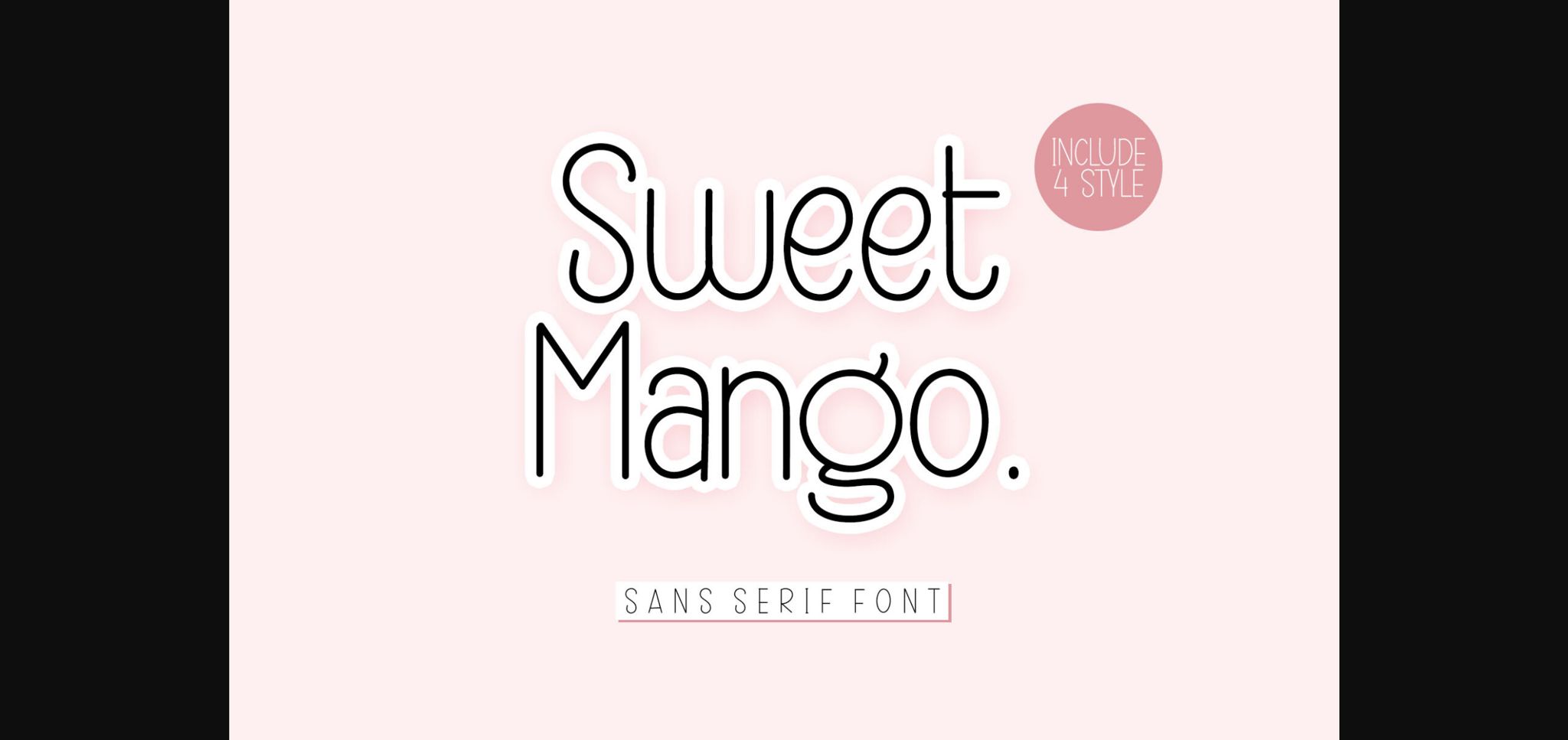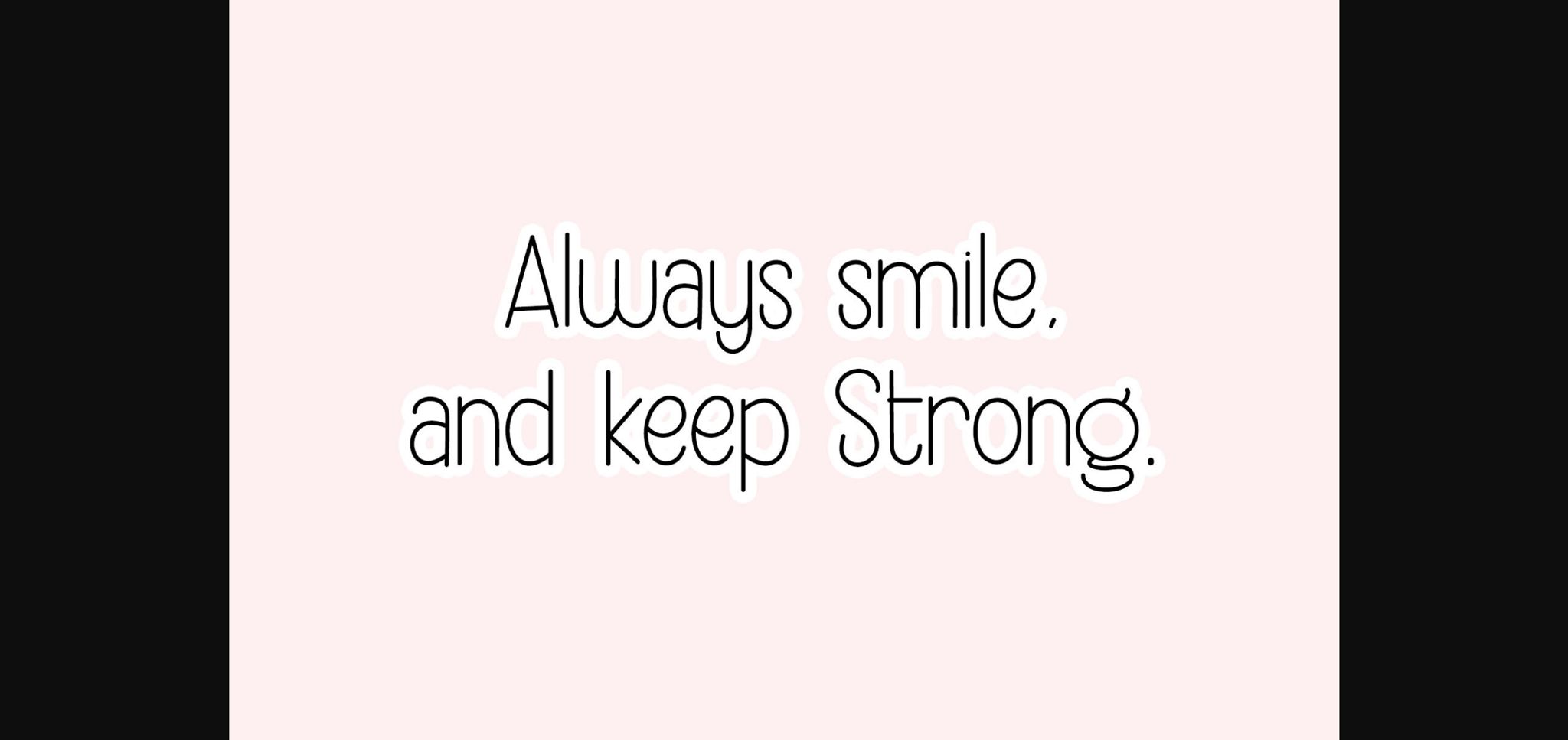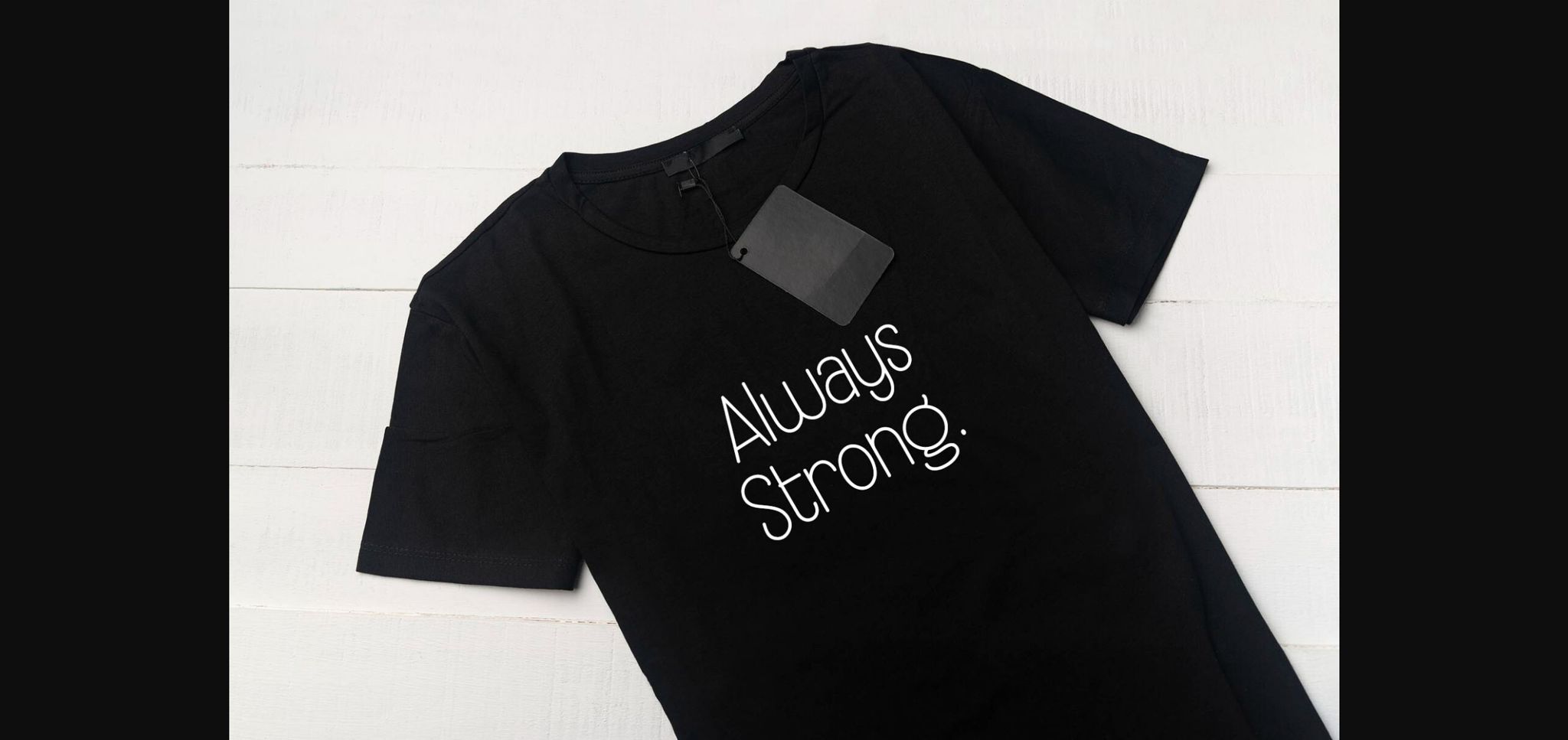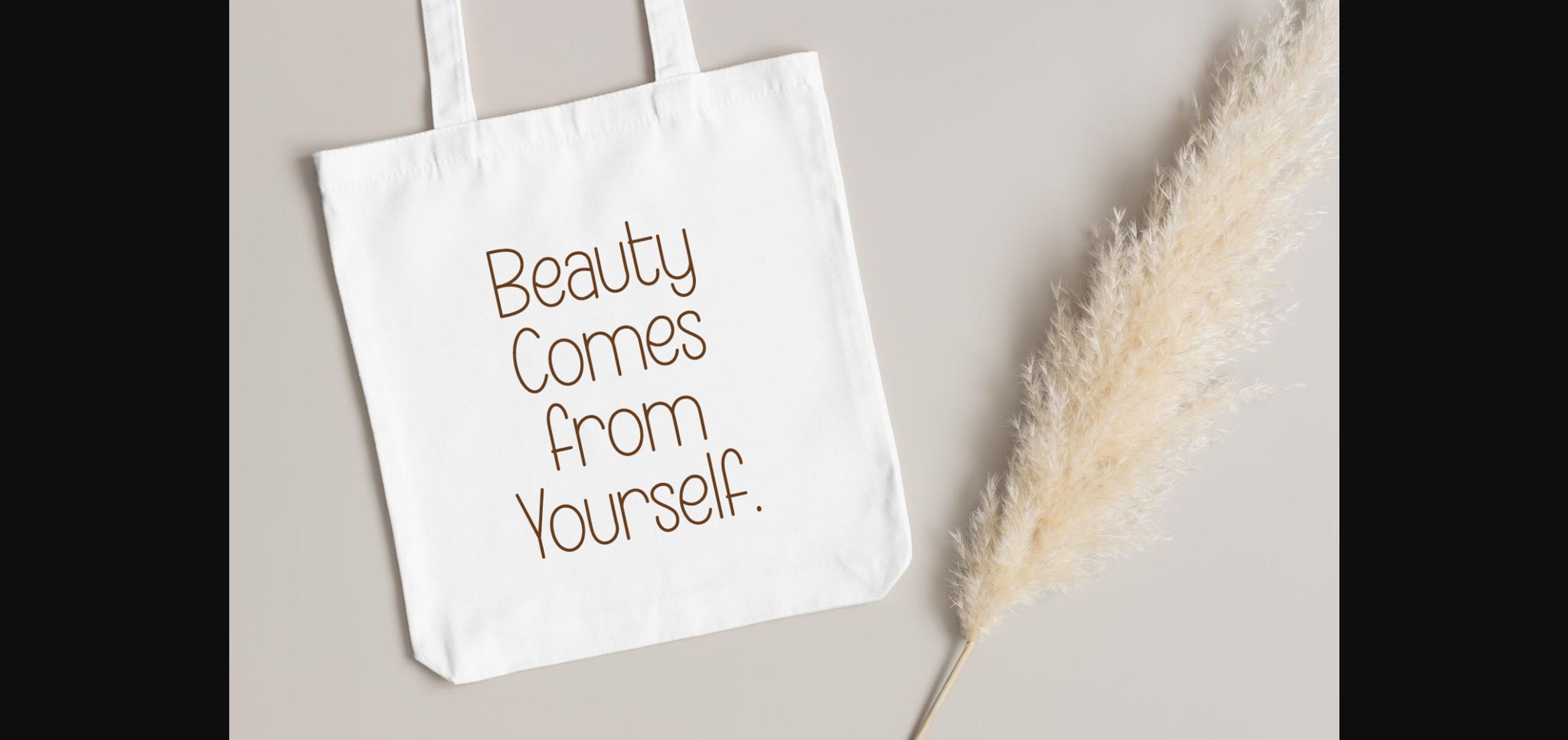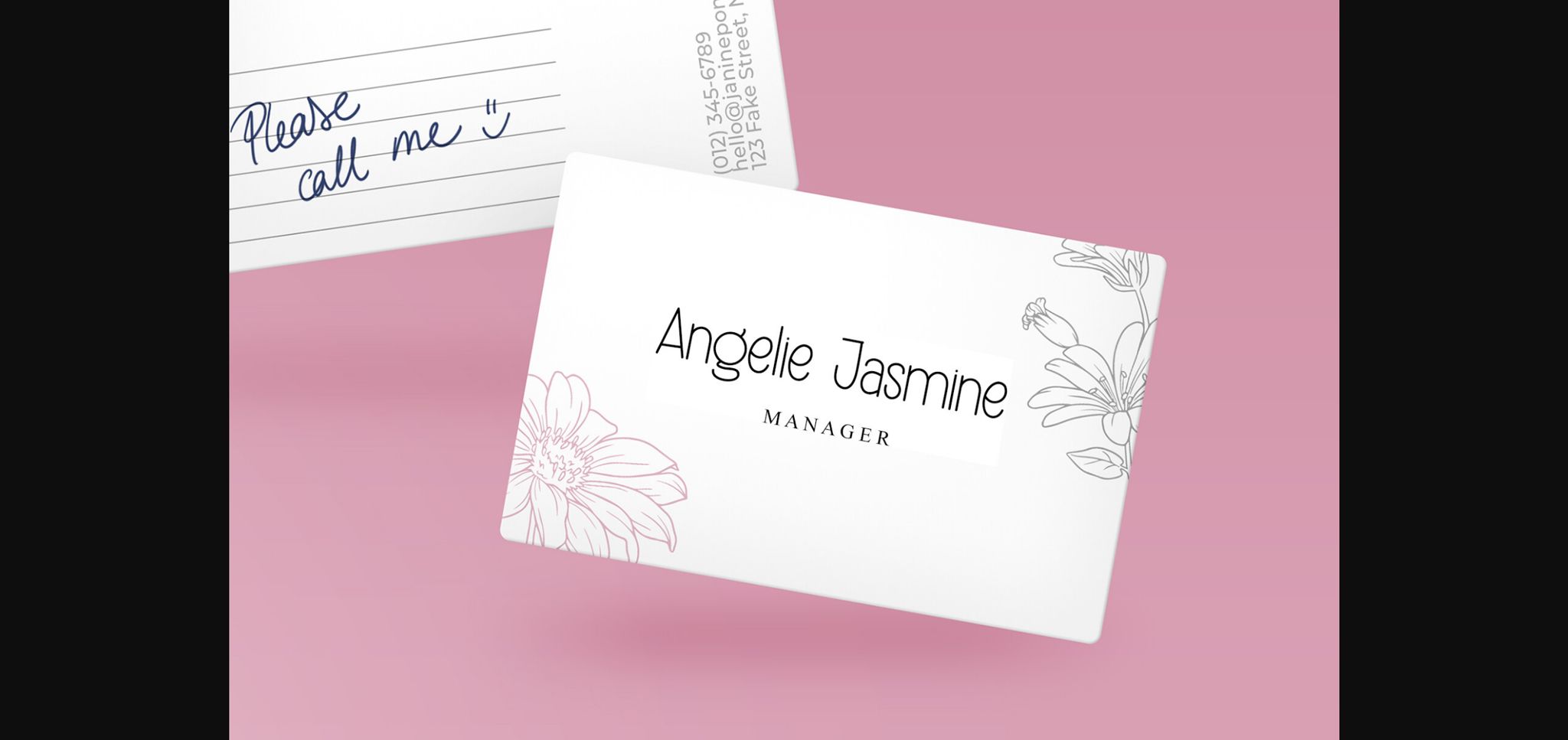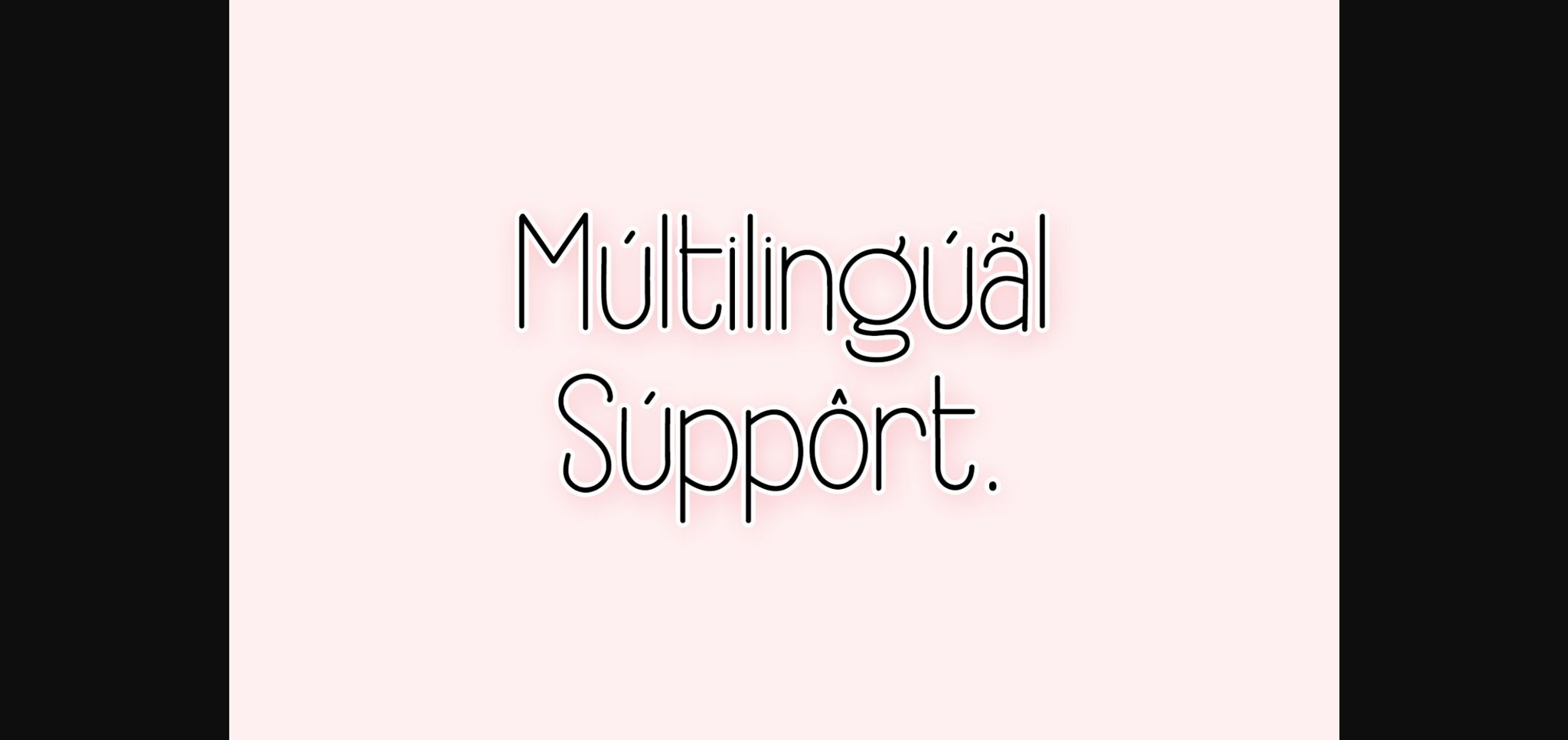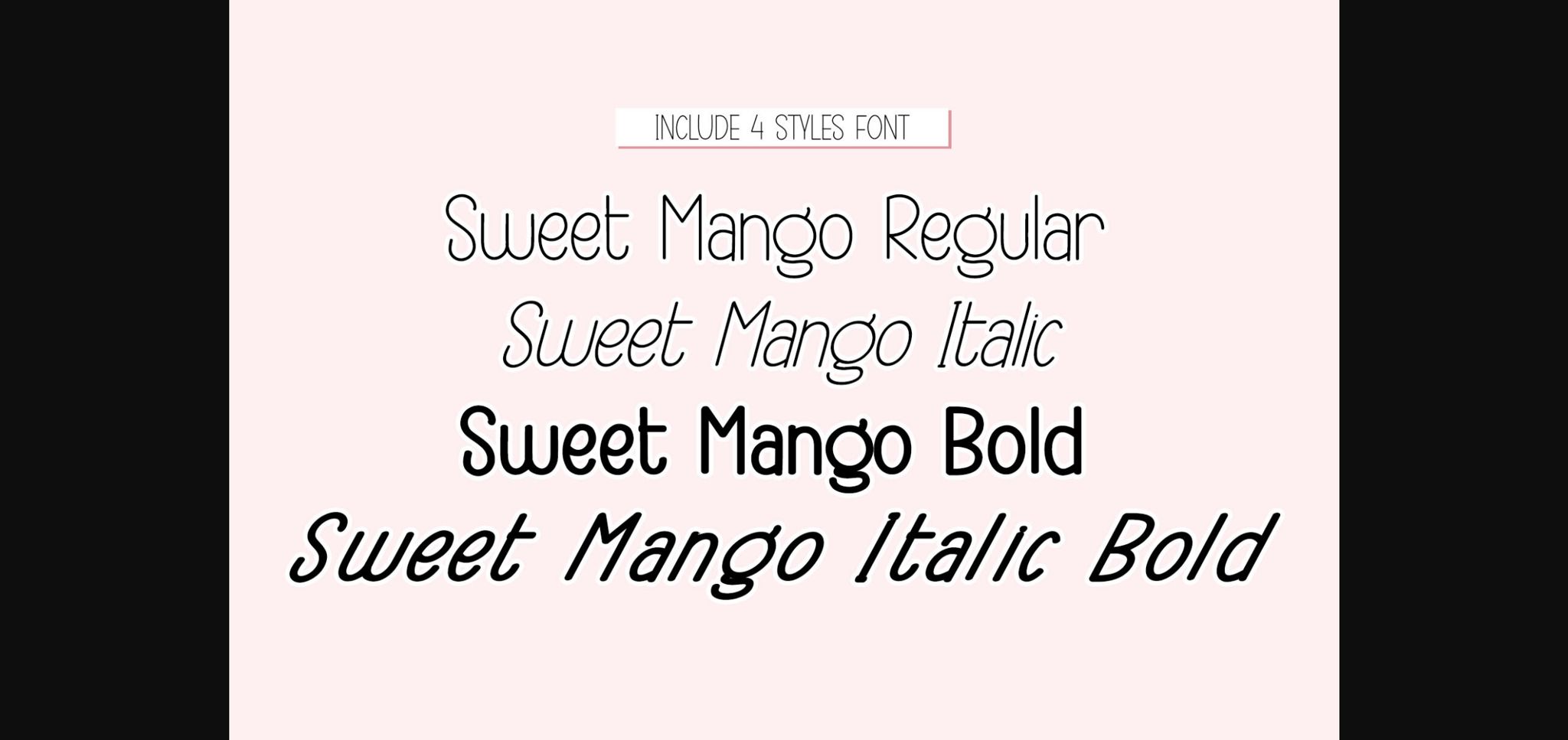
HomeSans Serif FontsSweet Mango Font Sans Serif Fonts Sweet Mango Font FacebookXPinterestWhatsApp 1 of 9 ... Sweet Mango Font Poster 2... Sweet Mango Font Poster 3... Sweet Mango Font Poster 4... Sweet Mango Font Poster 5... Sweet Mango Font Poster 6... Sweet Mango Font Poster 7... Sweet Mango Font Poster 8... Sweet Mango Font Poster 9... About Sweet Mango Font Sweet Mango is a modern sans serif font. This font is perfect for logos, greeting cards, package design, brand identity, craft designs, any DIY projects, book titles, wedding invitations, packaging, and more. DOWNLOAD NOW People also explored Merry Christmas Font Adelia Font Dragon Font Neoteric Pro Font Willy and Willona Font Good Day Font Buttek Font Happy Mermaid Font Science Font 321 0 TagsSweet Mango Font Previous articleCivic FontNext articlePhizicho Font LEAVE A REPLY Cancel reply Comment: Please enter your comment! Name:* Please enter your name here Email:* You have entered an incorrect email address! Please enter your email address here Website: Save my name, email, and website in this browser for the next time I comment. Personal Use Free Lumber Personal Use Free Read more about this font Vanity Personal Use Free Read more about this font Mini Story Personal Use Free Read more about this font Time for Presents Personal Use Free Read more about this font BLOG Fonts That Capture the Spirit of New York City New York City is more than just a place—it’s an experience, a rhythm, a visual language... How to Install and Use Fonts on Windows, macOS, and Web Projects Free vs Paid Fonts: Why Investing in Premium Fonts Is Worth It Modern Sans-Serif Fonts That Brands Love in 2025